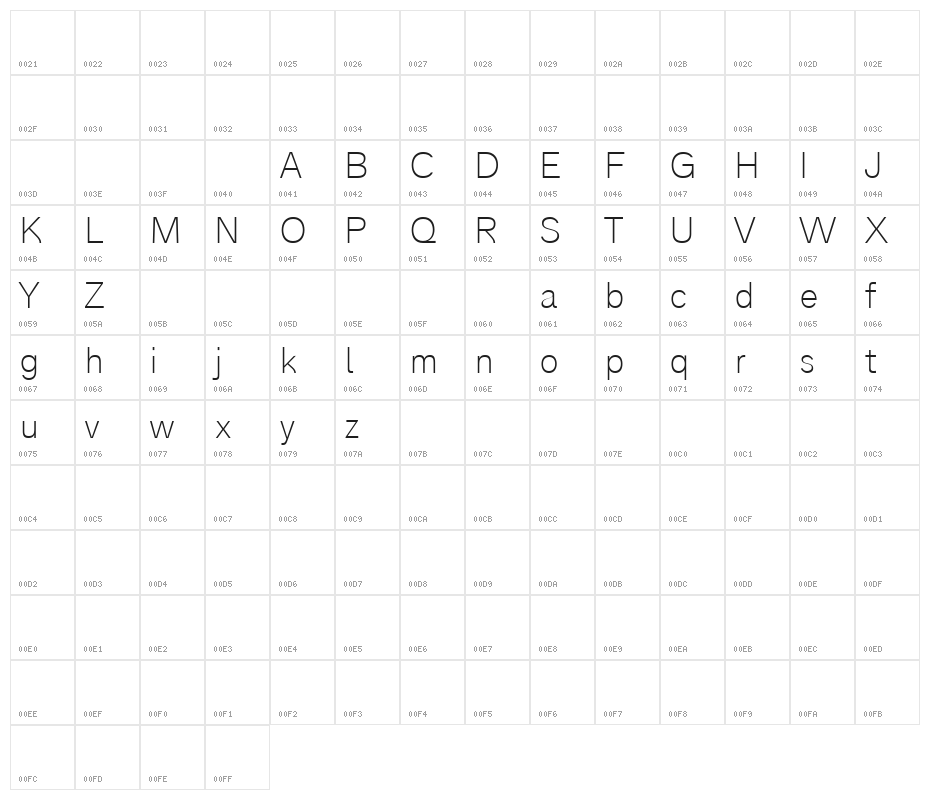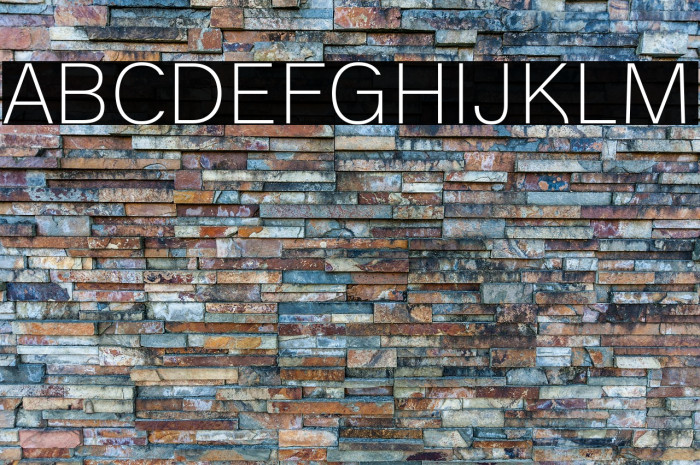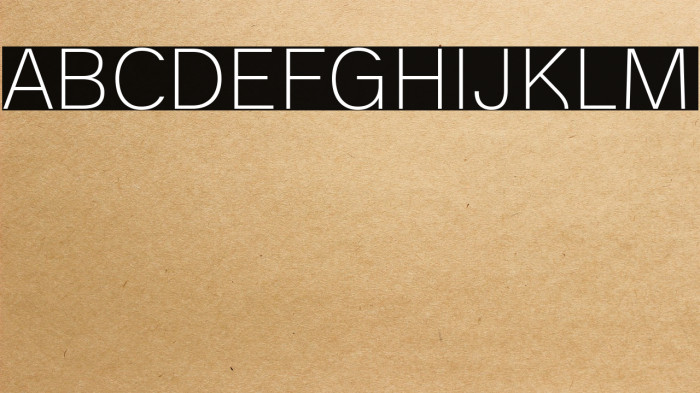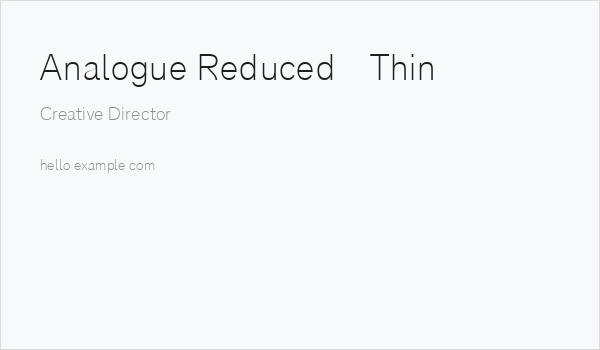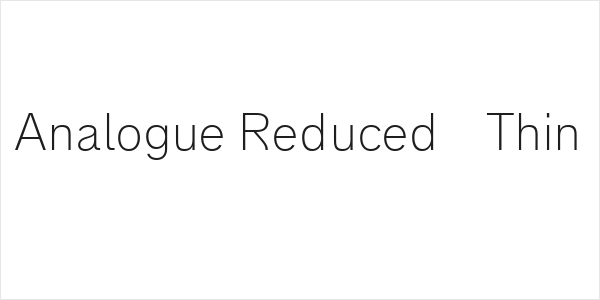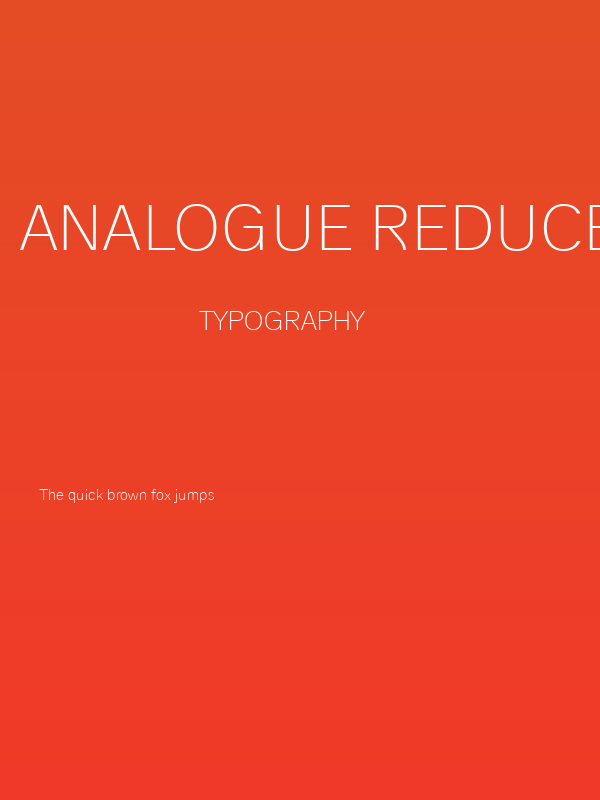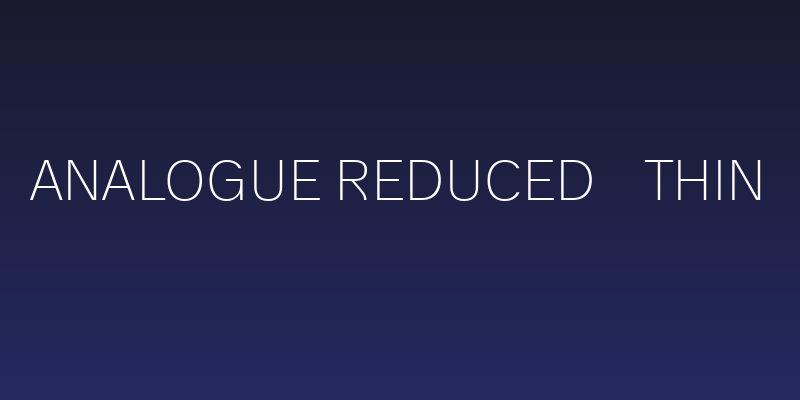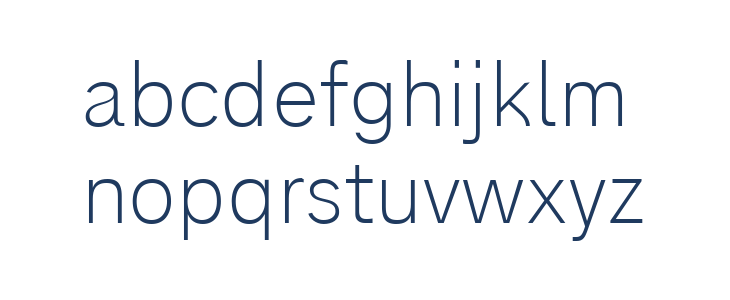
Analogue Reduced 35 Thin Font
Analogue Reduced 35 Thin Description
This font features a clean and minimalist design, characterized by its thin and uniform stroke width. The letters are evenly spaced, providing a modern and airy feel. Its simplicity and clarity make it highly legible, suitable for both digital and print media. The uppercase and lowercase letters maintain a consistent style, with smooth curves and straight lines. The font's geometric shapes and balanced proportions contribute to its contemporary aesthetic, making it versatile for various design applications.
| Proposed Projects | Ideal for use in modern branding, minimalist web design, editorial layouts, and corporate communications. |